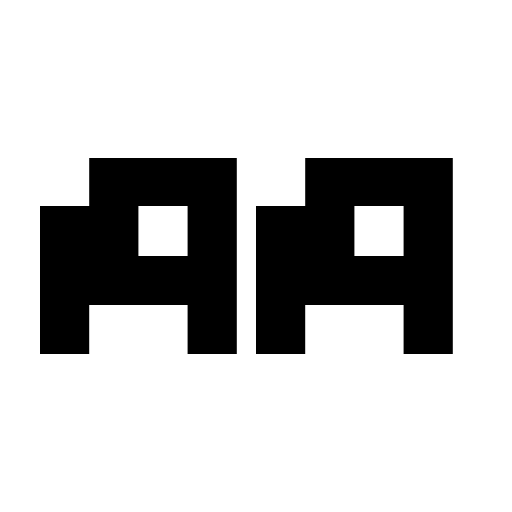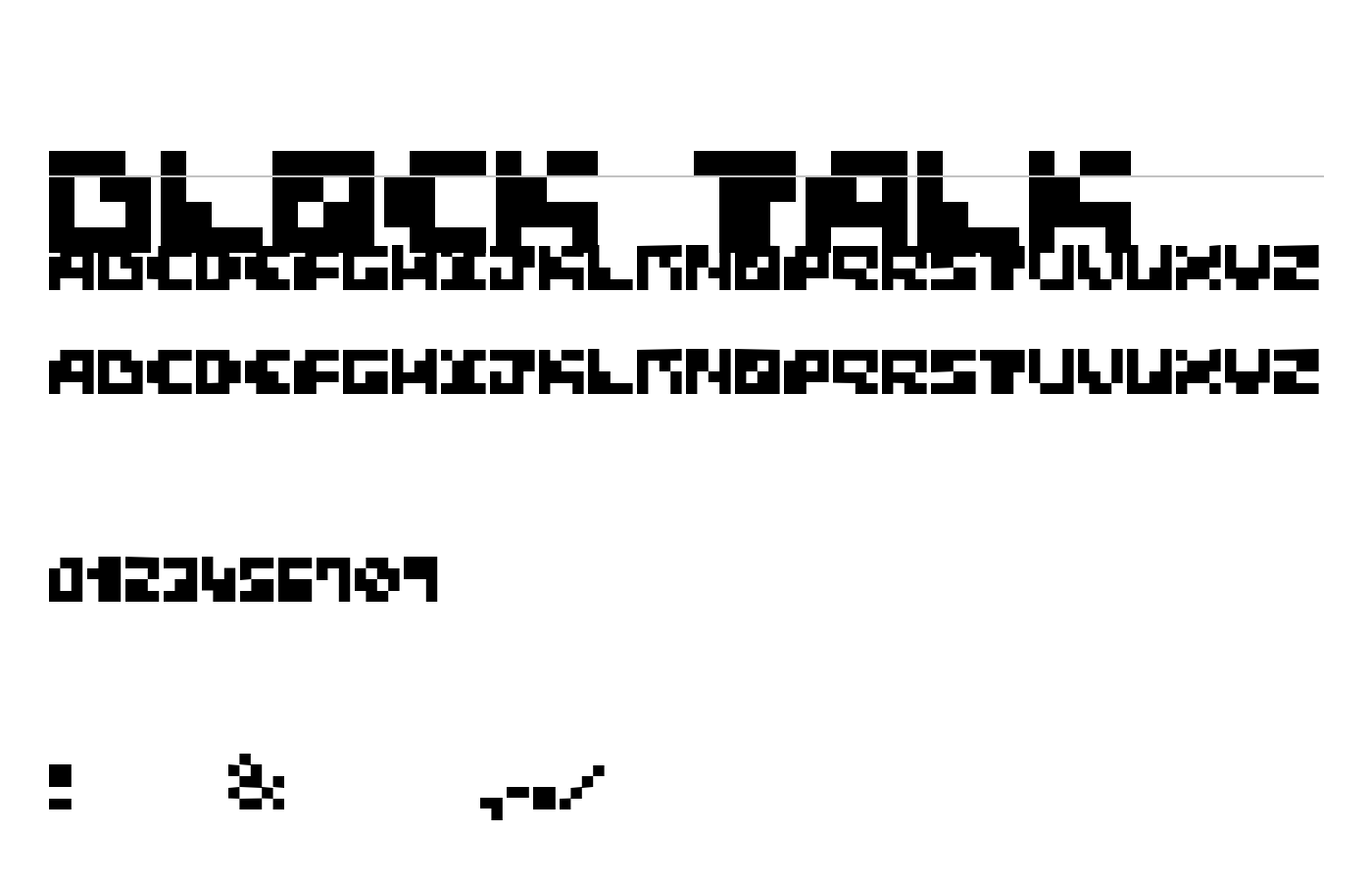
Block Talk is a bold, blocky sans serif font with a distinctly pixelated, geometric style that evokes retro digital aesthetics. Its uniform stroke weight and rigid square forms give it a strong, tech-inspired personality, making it ideal for gaming, technology, or urban-themed designs and headlines that need a striking, modern, and playful look. This font works best in display uses where its unique shape and strong presence can stand out without losing clarity.
Block Talk Font
About Block Talk Font